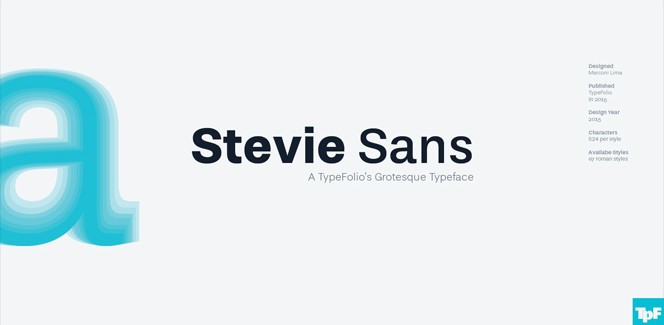
Stevie Sans
Stevie Sans is a contemporary font family that is inspired by the grotesque specimens of the 19th and early 20th century. It bears all the characteristics of its classic predecessors – rational and almost neutral nature, relatively straight appearance, perfect balance. It has the typical high legibility that makes it a real workhorse suitable for enormously vast range of applications in both larger and smaller sizes.
Despite being based on old samples, Stevie Sans has all the features that are required from a modern font family and as such provides a great number of opportunities. It comes in seven weights – Thin, Light, Book, Regular, Medium, Bold and Black. There are more than 500 glyphs and plenty of OpenType features including ligatures, fractions, symbols, ordinals, superiors and inferiors, old style numerals, tabular figures and localized forms. Extensive language support is at your disposal too.
Designer: Marconi Lima
Publisher: Typefolio